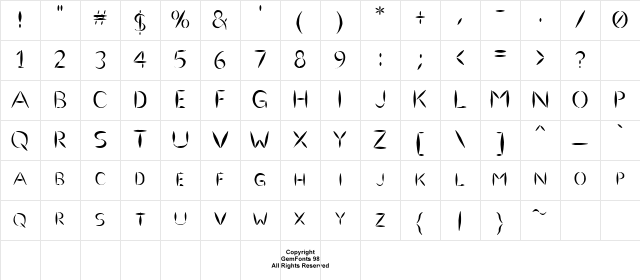
Ulse Freehand Regular
Design Context for Ulse Freehand
Ulse Freehand flows with the natural rhythm of handwritten lettering, making it ideal for designs that call for warmth and personal expression.
Font Pairing: Combine Ulse Freehand with a simple geometric sans for maximum contrast - the tension between flowing curves and clean structure is a classic typographic pairing.
Pro Tip: Use Ulse Freehand for short runs of text - names, titles, or taglines. Extended body copy in script faces tires the eye quickly.